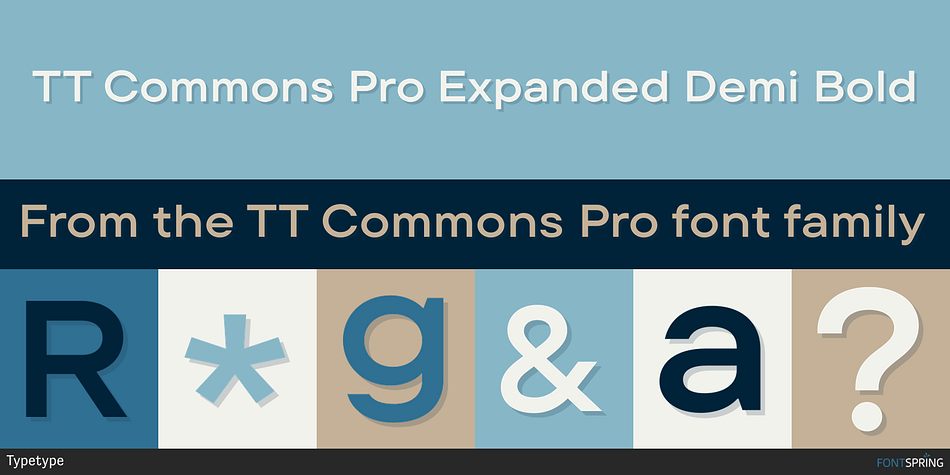
TT Commons Pro Expanded Demi Bold
Designed by Antonina Zhulkova, Kseniya Karataeva, Ivan Gladkikh, Yulia Gonina, TypeType Team and Pavel Emelyanov, TT Commons Pro is a sans serif font family. This typeface has one hundred and four styles and was published by Typetype.
Introducing TT Commons™️ Pro, version 3.500!
We took our bestseller even further, refining and enhancing its functionality: it now boasts an amplified character set, new OpenType features and stylistic sets, and improved kerning and hinting.
TT Commons™ Pro is a geometric sans serif. This is one of the studio’s most popular fonts, known for its versatile nature, large character set that supports more than 275 languages, and functional set of OpenType features.
TT Commons™ Pro has become our bestseller for a reason: its range of applications knows no bounds, and the possibilities are practically endless! This font is utilized in a variety of contexts and fields, from tech firms and clothing brands to charities, food items, and many others. If you need an all-purpose typeface that is well-suited for both day-to-day tasks and creative designs—you have found it!
We keep this font up-to-date by releasing regular technical updates and expanding its character set. Version 3.500 offers a larger character collection, new OpenType features, and more stylistic sets. Among them are rounded forms for all letters “Gg,” horizontal elements in the letters “Кк” and “Жж,” an alternate ampersand form, and alternates for figures 1, 3, 4, 6, and 9.
Currently, the TT Commons™️ Pro typeface includes:
- 5 different widths/subfamilies: Normal with classic proportions, narrower-proportioned Condensed and Compact, wide-proportioned Expanded, and Mono where each character takes up the same width;
- 22 font styles in the Normal, Compact, Condensed, and Expanded widths/subfamilies: Thin, ExtraLight, Light, Regular, Normal, Medium, DemiBold, Bold, ExtraBold, Black, ExtraBlack, and italics mirroring these widths;
- 14 font styles in TT Commons™️ Pro Mono: Thin, ExtraLight, Light, Regular, Medium, DemiBold, Bold, and italics mirroring these styles;
- 2 variable fonts, TT Commons™️ Pro Variable, with the width, slope, and weight axes of variation, and TT Commons™️ Pro Mono adjustable in weight and slope;
- 1546+ characters in the set of each Mono version font style, and 2047 characters in each Normal, Condensed, Expanded, and Compact font style;
- 275+ languages support, including Greek and Vietnamese;
- flawless kerning and manual TrueType hinting;
- 41 OpenType features: various ligatures, fractions, numerators, superscripts, alternate stylistic sets, and localization features.
The capabilities of TT Commons™️ Pro extend beyond boundaries. This font shines brightest in web, print, branding, packaging design, and apps.
Designers Antonina Zhulkova, Kseniya Karataeva, Ivan Gladkikh, Yulia Gonina, TypeType Team, Pavel Emelyanov